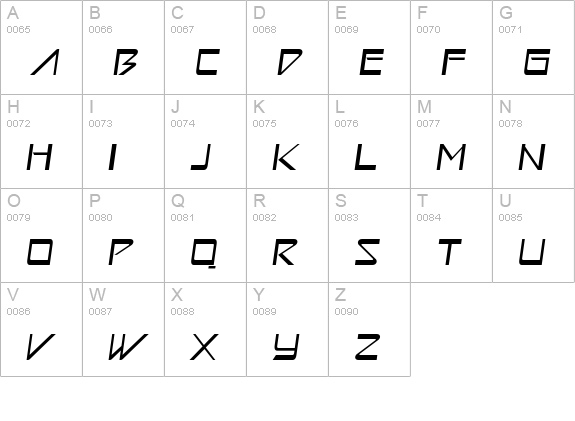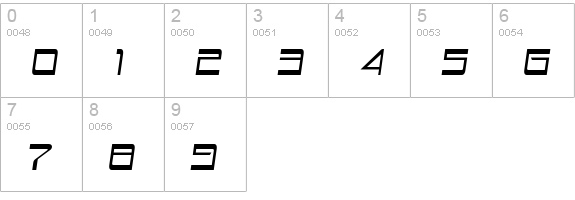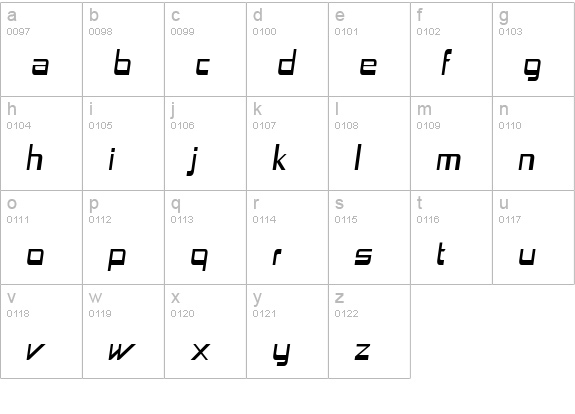
Astron Boy Italic is a distinctive, italic variant in the Astron typeface family \xE2\x80\x94 well suited to design and typography projects.
Astron Boy Italic font is a sleek and modern typeface that exudes a sense of futuristic sophistication. With its slanted and dynamic design, this font is perfect for adding a touch of elegance to any project. Whether you're creating a stylish logo, designing a trendy website, or crafting eye-catching posters, Astron Boy Italic is sure to make a bold statement. The unique curves and sharp angles of this font give it a distinct personality that sets it apart from traditional italic fonts. Its clean lines and stylish appearance make it versatile and suitable for a wide range of design applications. And the best part? Astron Boy Italic font is completely free to download at FontsMarket.com. So go ahead and elevate your designs with this stunning typeface without breaking the bank. Download Astron Boy Italic today and let your creativity shine!